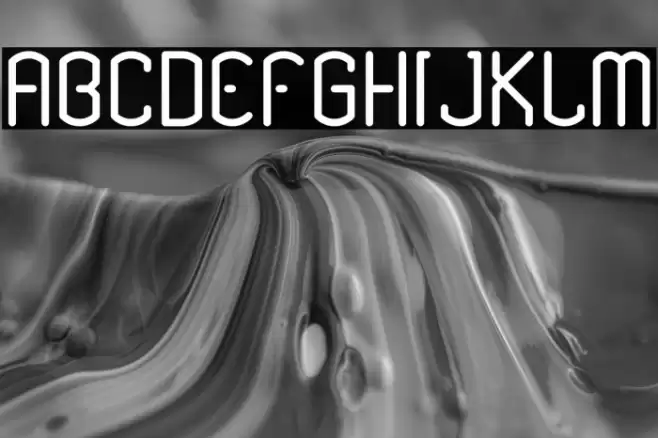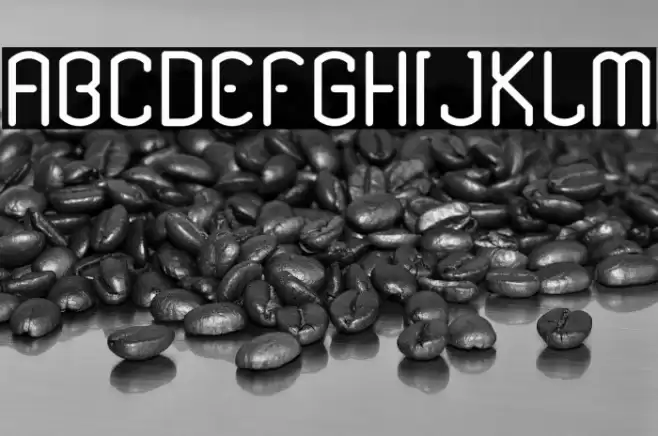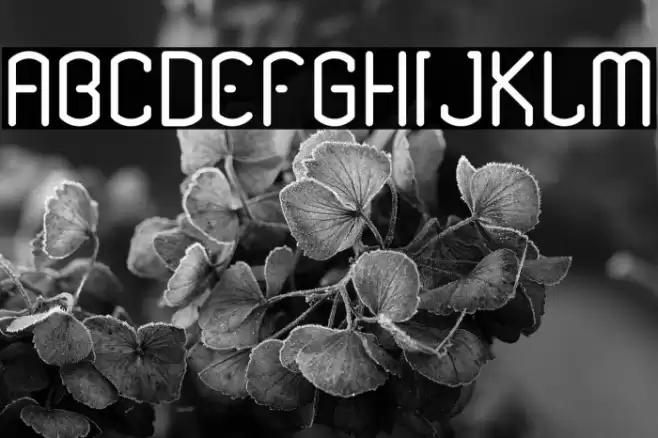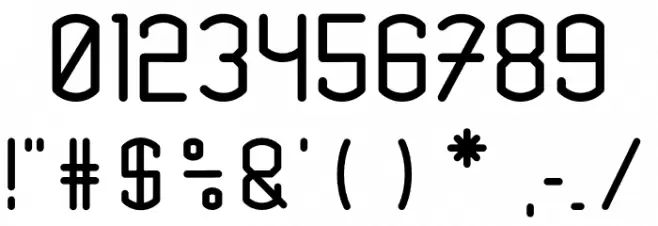
Renesnip Sans Regular Font
Renesnip Sans Regular Description
This font features a modern, geometric design with rounded edges and a clean, streamlined appearance. The characters are uniform in width, giving it a monospaced feel, yet they maintain a distinct personality through subtle curves and angles. The uppercase and lowercase letters are consistent in style, offering a cohesive look across the alphabet. Numbers and special characters follow the same design principles, ensuring readability and versatility. The font's simplicity and clarity make it suitable for a variety of applications, from digital interfaces to print media.
A modern, geometric font with rounded edges and a clean, uniform appearance from Uncategorized fonts.
- Font: Renesnip Sans Regular
- Proposed Projects: Ideal for digital interfaces, branding, signage, and print media where clarity and modern aesthetics are desired.